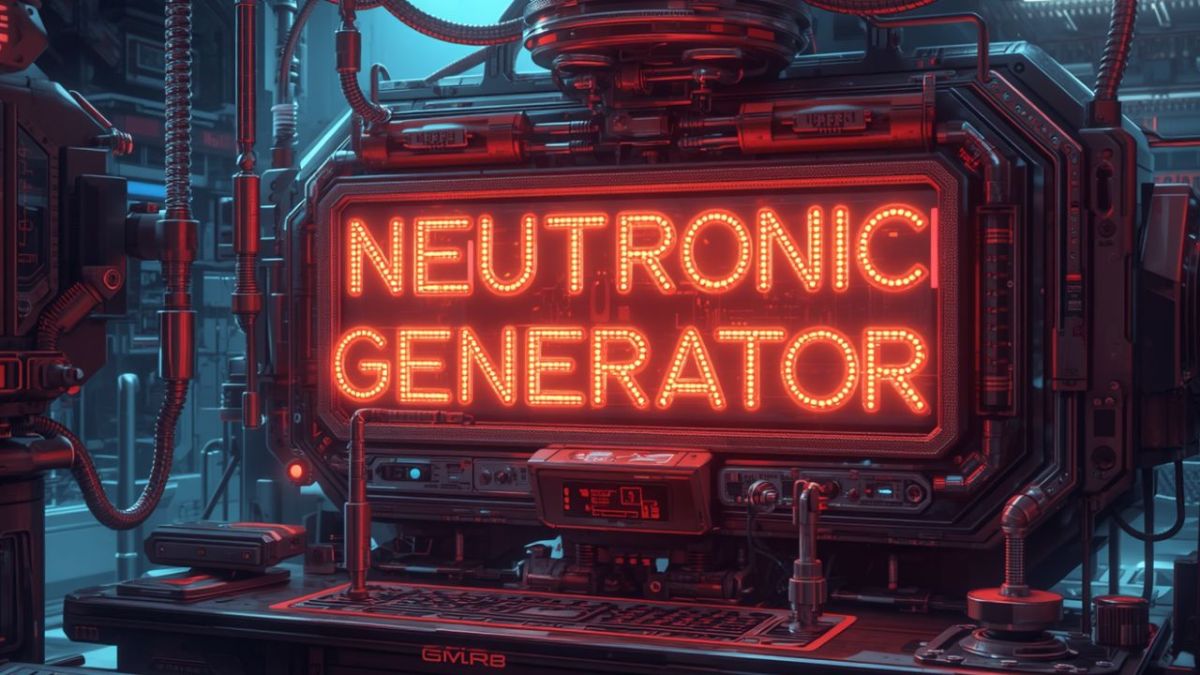
Neutronic Font Generator
Neutronic Font Generator – Bold Editorial Typography Tool Neutronic Font Generator Bold editorial typography with the distinctive Neutronic typeface ➷ Neutronic Font Generator creates stunning text using the bold editorial Neutronic typeface – perfect for publications, branding, and editorial designs. ↩ Undo ↪ Redo 💾 Save Preset Load Preset… ⚖️ Compare Current Design Comparison Design …